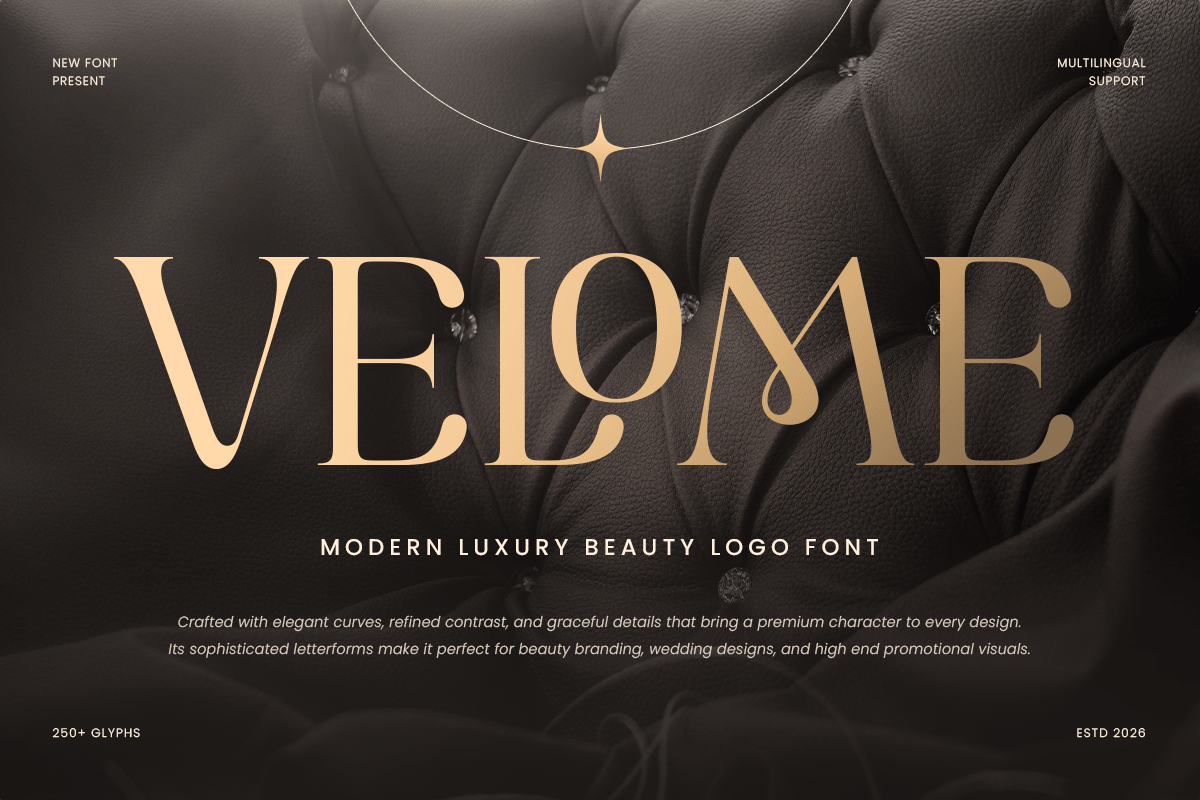
Velome
-Modern Luxury Beauty Logo Font
Velome - Modern Luxury Beauty Logo Font
Velome is a modern luxury beauty logo font crafted for elegant branding, refined typography, and stylish visual identity. With graceful letterforms, polished contrast, and sophisticated display details, it brings a classy and premium look to every design.
Designed for logos, beauty branding, skincare packaging, fashion identity, boutique layouts, editorial headlines, and social media graphics, Velome blends luxury elegance with modern readability.
Perfect for designers who want a beauty logo font with refined style, feminine charm, and premium personality.
Velome Font Features
• Uppercase & lowercase
• Luxury beauty logo characters
• Alternates & ligatures
• Multilingual support
• Professional kerning
Velome Font Perfect For
Logo design, beauty branding, skincare packaging, luxury identity, fashion branding, boutique designs, editorial headlines, social media posts, product labels, and elegant typography projects.